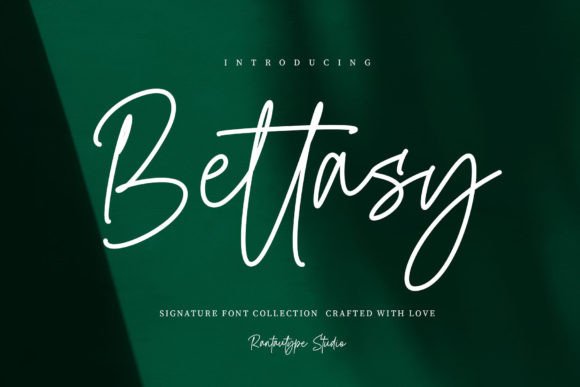
The Elegant Charm of Bettasy Font: A Designer’s Delight
I’ll never forget the time I was working on a wedding invitation project, and my client asked for a font that was both elegant and playful. I scoured the internet, trying out font after font, but nothing seemed quite right. That was until I stumbled upon Bettasy Font. With its flowing, graceful curves, it was love at first sight! 💕 In this article, I’ll share my experience with Bettasy Font, its features, and how to make the most of it in your designs.
An Honest Review of Bettasy Font
What I Love About Bettasy Font
- ✨ Elegant and charming: Bettasy Font exudes sophistication and refinement, making it perfect for high-end designs.
- ✅ Versatile: This font is suitable for a wide range of projects, from invitations and logos to branding and packaging.
- 💫 Delicate strokes: The font’s gentle strokes bring warmth and creativity to any design.
While Bettasy Font is an excellent choice for many projects, it’s not without its limitations. For example:
- 🤔 It may not be the best choice for body text, as it’s a script font and can be difficult to read in large blocks.
- ⚠️ Some characters may not work well in all contexts, so be sure to test the font thoroughly before finalizing your design.
A Practical Guide to Using Bettasy Font
- Experiment with OpenType features, such as ligatures and stylistic alternates, to add visual interest to your design.
- Explore the font’s glyphs and OpenType features, such as swashes and alternates, to add a personal touch to your design.
The Designer Inspiration Behind Bettasy Font
Bettasy Font was designed with the intention of creating a beautiful, elegant script font that would bring a touch of sophistication to any design. The designer, inspired by classic calligraphy and handwriting, aimed to create a font that was both refined and approachable. 💫
| Font Name | Bettasy Font |
| Author | RantauType |
Q: What type of projects is Bettasy Font best suited for?
A: Bettasy Font is perfect for projects that require an elegant, sophisticated touch, such as invitations, logos, branding, and packaging.
Q: Can I use Bettasy Font for body text?
A: While Bettasy Font is a beautiful font, it’s not recommended for body text due to its script nature and potential readability issues.
Q: Does Bettasy Font come with OpenType features?
A: Yes, Bettasy Font includes a range of OpenType features, such as ligatures, stylistic alternates, and swashes, to add visual interest to your design.